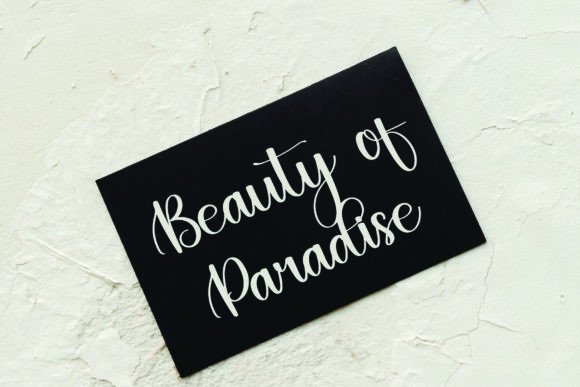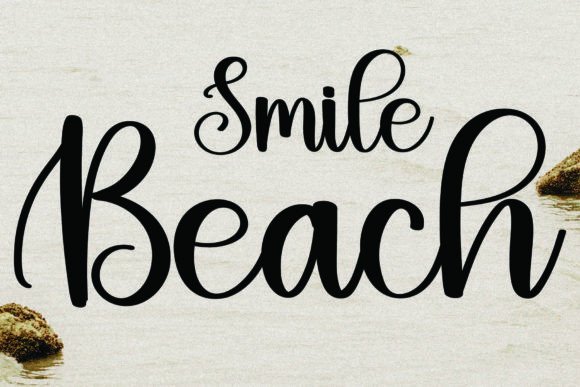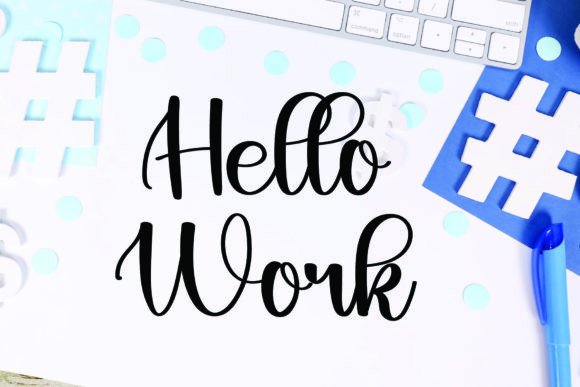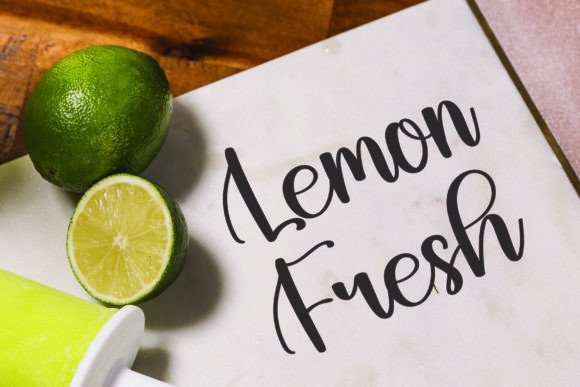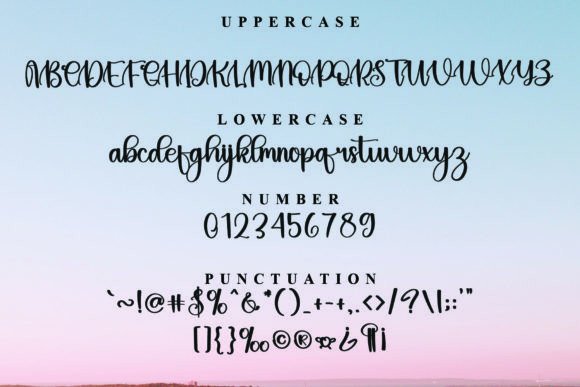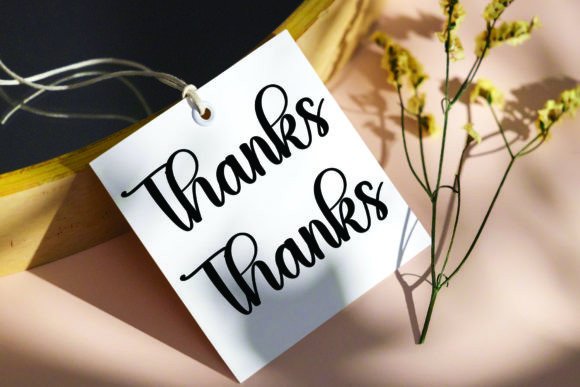
Introducing Bright Font: The Enchanting Handwritten Script to Elevate Your Designs
In the world of typography, few fonts manage to capture the essence of elegance and romance as effectively as the Bright Font. This enchanting handwritten script font has been making waves in the design community, and for good reason. Its versatility, charm, and wide range of applications make it an indispensable tool for designers, crafters, and anyone looking to add a touch of sophistication to their projects.
The Charm of Bright Font
Bright Font is more than just a typeface; it’s an experience. Its handwritten nature gives it a personal and intimate feel, reminiscent of notes written with love and care. This font is perfect for projects where you want to convey warmth, elegance, and a sense of closeness. Whether you’re designing greeting cards, invitations, or headlines, Bright Font brings a level of sophistication and charm that’s hard to match.
One of the standout features of Bright Font is its incredible versatility. This script font can be used across a wide spectrum of applications, making it a valuable addition to any designer’s toolkit. Here are just a few examples of where Bright Font can make a significant impact:
- Greeting Cards: Add a personal touch to your greeting cards, making them feel more intimate and heartfelt.
- Invitations: Whether it’s a wedding, birthday, or any other celebration, Bright Font can help set the tone for a memorable event.
- Headlines: Elevate your blog posts, articles, or advertisements with elegant and eye-catching headlines.
- Branding: Use Bright Font to create a unique and recognizable brand identity that speaks to your audience on a personal level.
Adding a Romantic Feel to Your Projects
At its core, Bright Font is all about evoking emotions. Its elegant strokes and whimsical charm are designed to add a romantic feel to your projects. This makes it particularly well-suited for projects where you want to convey love, appreciation, or admiration. Imagine using Bright Font in a Valentine’s Day card, a wedding invitation, or even a simple “thank you” note. The font’s inherent charm and character can instantly elevate your design, making it more impactful and memorable.
Why Designers and Crafters Love Bright Font
Bright Font has quickly become a favorite among designers and crafters for several reasons:
- Ease of Use: Despite its elegant appearance, Bright Font is surprisingly easy to use, even for those who are new to design.
- High Readability: The font’s clear and flowing script ensures that your text remains readable, even at smaller sizes.
- Customization: Bright Font comes with a range of variations and ligatures, allowing you to customize your text and make it truly unique.
Bright Font is more than just a typeface; it’s a tool for creating meaningful connections through design. Its enchanting handwritten script, versatility, and romantic feel make it an invaluable asset for designers and crafters looking to elevate their projects. Whether you’re creating greeting cards, headlines, or branding materials, Bright Font is sure to add a touch of elegance and charm. So why wait? Dive into the world of Bright Font today and discover how this beautiful script font can transform your designs.